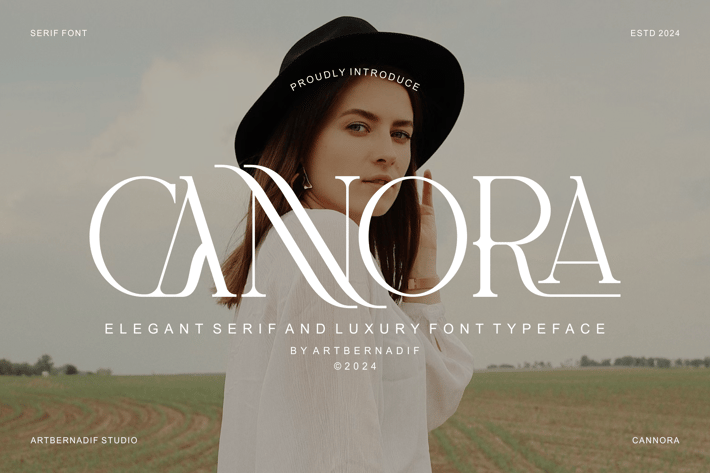
Cannora - Elegant Serif And Luxury Font Typeface
Introducing our new product Cannora Font Elegant Serif And Luxury Font Typeface
Cannora Font Modern Font is a Elegant and Luxury display font. The font is suitable for any branding project like logo, t-shirt printing, esport, and many more.
outstanding in a wide range of contexts.
Cannora Uppercase
Cannora Ligature
Cannora Alternative